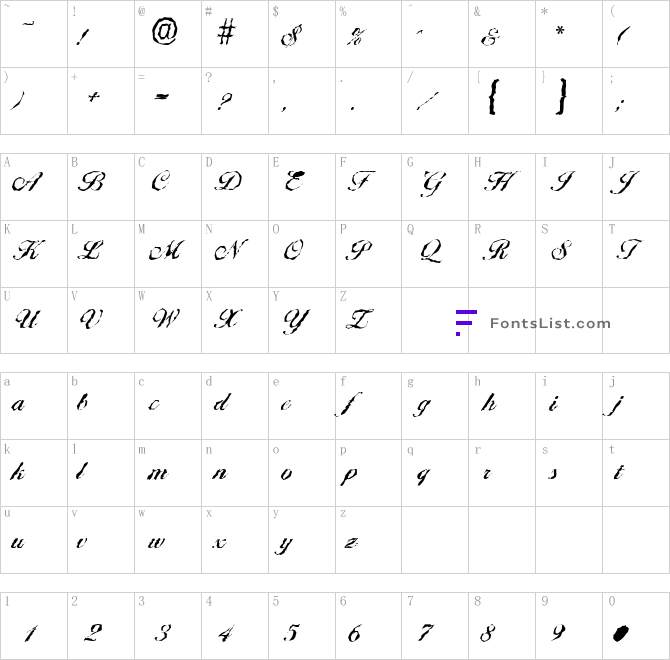
BallantinesRandom-Medium-Regular.ttf is a very beautiful artistic font, BallantinesRandom-Medium-Regular.ttf is widely used in the design and printing of various books and pictures,BallantinesRandom-Medium-Regular.ttf has a strong visual impact,BallantinesRandom-Medium-Regular.ttf is a commonly used font in newspapers, magazines and books, and is used in posters, e-commerce Poster design, store design, logo design, font design and other fields.BallantinesRandom-Medium-Regular.